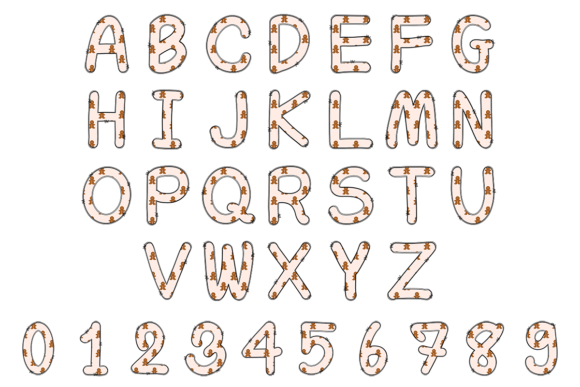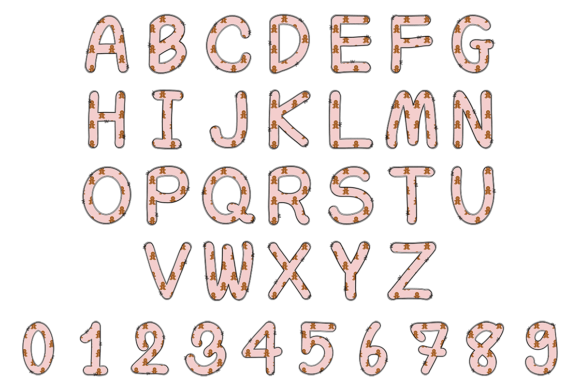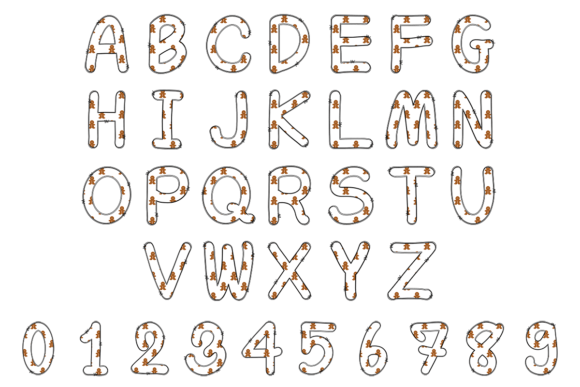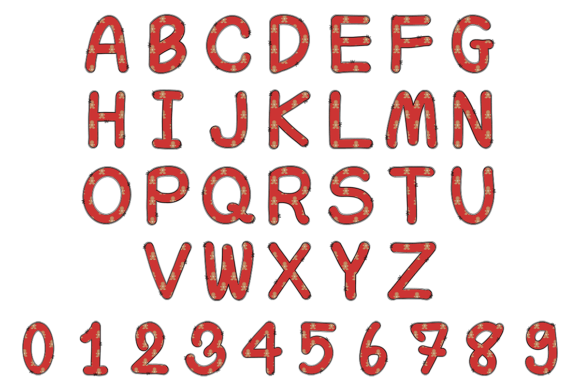
Gingerbread Font: The Sweetest Addition to Your Christmas Designs
It’s the most wonderful time of the year! The season of joy, love, and festive cheer is upon us, and what better way to get into the holiday spirit than with a delightful font that’s sure to make your designs merry and bright? Introducing the Gingerbread Font, a charming color font that’s perfect for Christmas, New Year, and all your creative projects.
A Deliciously Adorable Font for Every Occasion
We proudly present the Gingerbread Font, a carefully crafted color font that’s designed to bring a smile to your face and a touch of whimsy to your designs. This sweet font is not just limited to Christmas and New Year; you can use it for any occasion, from birthdays to weddings, and everything in between. The possibilities are endless, and we’re excited to share this fantastic font with you.
What Makes Gingerbread Font So Special?
The Gingerbread Font is a color font, specifically an Opentype-SVG font, which means it’s compatible with a range of popular design software, including PhotoShop, Illustrator, Silhouette, and Inkscape. This font is perfect for designers, crafters, and anyone who loves to create unique and eye-catching projects. With its intricate details and colorful design, the Gingerbread Font is sure to add a professional touch to your work.
With the Gingerbread Font, your options are limitless! You can use it to create:
- Festive Christmas cards and invitations
- New Year’s Eve party decorations and flyers
- Custom gifts, such as mugs, t-shirts, and tote bags
- Beautiful DIY projects, like paper crafts and scrapbooking
- Stunning social media graphics and blog posts
Whether you’re a professional designer or a crafty hobbyist, the Gingerbread Font is sure to inspire your creativity and take your projects to the next level.
Why You’ll Love the Gingerbread Font
Here are just a few reasons why we’re confident you’ll adore the Gingerbread Font:
- Unique and eye-catching design: The Gingerbread Font features a one-of-a-kind, colorful design that’s sure to grab attention.
- High-quality and intricate details: Our font is crafted with love and care, ensuring that every detail is perfect and precise.